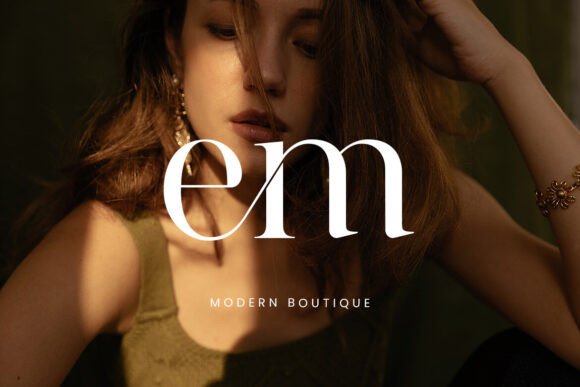
Introducing Butcherly Font: A Modern Serif Typeface for Versatile Design Projects
In the world of typography, a font can make or break a design project. With the right font, a design can elevate to new heights, conveying the intended message with clarity and style. Butcherly Font is a modern serif typeface that has been making waves in the design community, and for good reason. This versatile font is ideally suited for a wide range of projects, from signature and stationery to logo design, wedding typography, magazine and book covers, website headers, branding, and more.
What is Butcherly Font?
Butcherly Font is a modern serif typeface that boasts a unique blend of classic and contemporary elements. Its serif design gives it a touch of sophistication and elegance, while its modern twist ensures it remains fresh and relevant. This font is perfect for designers looking to add a touch of refinement to their projects without sacrificing readability.
Key Features of Butcherly Font
- Modern Serif Design: Butcherly Font features a modern serif design that is both elegant and sophisticated.
- Versatile: This font is suitable for a wide range of projects, from print to digital media.
- Masculine and Feminine Qualities: Butcherly Font displays both masculine and feminine qualities, making it perfect for fashion-related branding and editorial design.
- High Readability: The font’s clear and concise design ensures high readability, even at smaller font sizes.
Use Cases for Butcherly Font
Butcherly Font is an incredibly versatile typeface that can be used in a variety of design projects. Here are some of the most popular use cases:
- Signature and Stationery: Add a touch of elegance to your business cards, letterheads, and invoices with Butcherly Font.
- Logo Design: Create a lasting impression with a custom logo designed using Butcherly Font.
- Wedding Typography: Make your wedding invitations, menus, and programs truly special with Butcherly Font.
- Magazine and Book Covers: Give your publication a professional edge with Butcherly Font.
- Website Headers: Elevate your website’s design with Butcherly Font, perfect for headers, titles, and more.
- Branding: Establish a strong brand identity with Butcherly Font, suitable for packaging, advertising, and more.
- Fashion-Related Branding: Showcase your fashion brand’s personality with Butcherly Font, perfect for editorial design, lookbooks, and more.
The Benefits of Using Butcherly Font
So, why choose Butcherly Font for your design projects? Here are just a few benefits:
- Unique Design: Butcherly Font offers a unique blend of modern and classic elements, setting it apart from other serif typefaces.
- Improved Readability: The font’s clear design ensures high readability, making it perfect for body text and headings.
- Flexibility: Butcherly Font can be used in a wide range of design projects, from print to digital media.
- Elegance and Sophistication: Add a touch of elegance and sophistication to your designs with Butcherly Font.
Tips for Using Butcherly Font Effectively
To get the most out of Butcherly Font, here are some tips to keep in mind:
- Pair with Other Fonts: Experiment with pairing Butcherly Font with other fonts to create a unique visual identity.
- Adjust Font Sizes: Play with font sizes to create visual hierarchy and emphasis in your designs.
- Use in Headings and Titles: Take advantage of Butcherly Font’s elegant design by using it in headings and titles.
- Experiment with Colors: Try out different color schemes to find the perfect match for your brand or design.
In conclusion, Butcherly Font is a versatile and elegant modern serif typeface that is perfect for a wide range of design projects. Its unique blend of classic and contemporary elements, combined with its high readability and flexibility, make it an excellent choice for designers looking to elevate their designs. Whether you’re working on a signature and stationery, logo design, wedding typography, or branding, Butcherly Font is sure to impress.